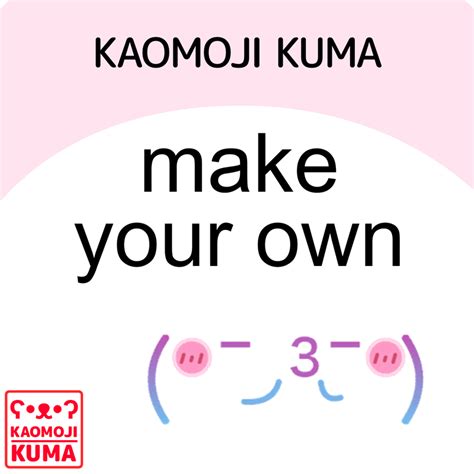
Kaomoji Font Illustrator: Create Your Own Emoticons
Hey guys! Ever scrolled through your phone or online chats and seen those super expressive little faces made from text characters? Yeah, those are kaomoji , and they’re seriously awesome for adding personality to your digital conversations. But what if you want to go beyond the standard kaomoji and create your own unique designs? That’s where a kaomoji font illustrator comes in handy. In this article, we’re going to dive deep into what kaomoji are, why you might want to illustrate your own, and how you can get started with the right tools. We’ll cover everything from the basics of kaomoji construction to more advanced techniques, ensuring you’ll be whipping up your own signature emoticons in no time. Get ready to level up your emoji game, folks!
Understanding Kaomoji: More Than Just Faces
So, what exactly are kaomoji ? The word itself comes from Japanese, with “kao” meaning “face” and “moji” meaning “character.” So, literally, they’re “face characters.” But they’re way more than just simple smiley faces. Think of them as text-based emoticons that you create using a combination of Japanese punctuation, letters, and symbols. Unlike Western emoticons that are typically read sideways (like :)), kaomoji are designed to be read upright, incorporating a wider range of expressions and emotions. They can be incredibly detailed, featuring arms, hair, hats, and even full-body characters. For instance, the classic happy face in kaomoji might look something like (^^) , but you can also find incredibly complex ones like the waving character ヾ(^_^)ノ or a crying character (T_T) . The beauty of kaomoji lies in their flexibility and the sheer expressiveness they allow. You can convey nuances of emotion that a simple :) just can’t capture. They’re a fundamental part of Japanese internet culture, used extensively in forums, social media, and messaging apps to add flavor and context to text. It’s like having a whole orchestra of emotions at your fingertips, played out with just a few keystrokes. The creativity involved is astounding; people have developed entire libraries of kaomoji for every conceivable situation and feeling. Whether you’re expressing joy (*´▽ *) , sadness (´・ ・ ) , anger (> <) , or even surprise (O_O)`, there’s a kaomoji for it. And the best part? You don’t need any special software to type them out – just your keyboard! However, while typing existing kaomoji is easy, creating new ones requires a bit more thought and perhaps some visual aids, which brings us to the idea of a kaomoji font illustrator.
Why Illustrate Your Own Kaomoji?
Now, you might be thinking, “Why would I need to illustrate my own kaomoji?” That’s a fair question, guys! The internet is already brimming with awesome kaomoji. But here’s the thing: personalization is key in the digital age. Creating your own kaomoji allows you to express yourself in a way that’s truly unique. Imagine having a signature kaomoji that perfectly captures your quirky sense of humor or your go-to reaction for a hilarious meme. It adds a personal touch that standard emoticons just can’t match. Furthermore, a kaomoji font illustrator can help you move beyond just typing characters. It can empower you to design visually appealing kaomoji that stand out. You might want to create kaomoji with specific themes – perhaps for a gaming group, a book club, or even your own personal brand. Think about creating kaomoji for your favorite anime characters, your pets, or inside jokes shared with your friends. The possibilities are truly endless! Instead of settling for the generic, you can craft something that resonates deeply with you and your audience. This is especially useful if you’re a content creator, a streamer, or someone who wants to build a distinct online persona. A custom kaomoji can become your digital mascot, instantly recognizable and representative of your style. It’s about ownership and creativity. You’re not just a consumer of kaomoji; you become a creator, adding your own artistic flair to this fun form of communication. So, the ‘why’ boils down to uniqueness, personalization, creative expression, and building a distinct online identity. It’s about making your mark on the digital world, one text character at a time.
Tools for Illustrating Kaomoji
Alright, let’s talk tools! When you think about illustrating kaomoji, your mind might immediately jump to complex graphic design software. But honestly, you can start with much simpler tools, and some are even specifically designed for creating text-based art like kaomoji. The first and most fundamental tool is your keyboard . Yes, seriously! By understanding the different characters available – symbols, punctuation, letters, and even special Unicode characters – you can start piecing together your own designs. Think of it like building with LEGOs, but with letters and symbols. Experimenting with different combinations is the first step. Then, you’ll want to explore online kaomoji generators or editors . These are fantastic resources that often provide a visual interface where you can drag and drop characters, adjust spacing, and preview your creations in real-time. Some popular examples include sites that offer character palettes sorted by category (like eyes, mouths, arms, etc.), making it super easy to find the building blocks you need. These editors often allow you to save your creations or even export them as text strings that you can copy and paste. For a more advanced approach, especially if you want to create truly custom visuals that look like kaomoji but are more like actual images, you might consider graphic design software . Programs like Adobe Illustrator, Procreate, or even free alternatives like GIMP or Krita can be used to draw kaomoji-style characters. In this scenario, you’re not just combining existing characters; you’re drawing them from scratch, giving you ultimate control over style, line weight, and shading. You can then save these as images to use in place of text kaomoji or even design a custom font file if you’re feeling ambitious. The key is to start with what’s accessible. Begin by playing with your keyboard, then explore online tools, and only if you need more control or a distinct visual style, move on to professional graphic design software. Remember, the goal is to make the process fun and accessible, so choose the tools that best fit your skill level and creative vision!
Using Your Keyboard: The Original Kaomoji Font Illustrator
Before we jump into fancy software, let’s give a shout-out to the OG – your keyboard . Seriously, guys, your keyboard is your first and most powerful kaomoji font illustrator . It’s the original text-based art tool! Kaomoji are built from characters you already have access to. Think about it: you’ve got your basic letters (A-Z, a-z), numbers (0-9), and a treasure trove of punctuation and symbols like periods ( . ), commas ( , ), hyphens ( - ), underscores ( _ ), parentheses ( () , [] , {} ), slashes ( / , ), asterisks ( * ), ampersands ( & ), at symbols ( @ ), and so on. But the real magic happens when you explore less commonly used symbols or special characters. Many keyboards, especially on smartphones, have easy access to a wide array of symbols. On a computer, you might need to use Alt codes or Character Map utilities (on Windows) or the Character Viewer (on macOS) to access a broader range of symbols, including those from different scripts or specialized icon sets. For instance, the ¯\_(ツ)_/¯ kaomoji uses a backslash , an underscore _ , a parenthesis () , and the Japanese character katakana ‘tsu’ (ツ). Finding that ‘tsu’ character is the trick! It’s all about experimenting. Start with a basic structure like ( ... ) or [ ... ] . Then, focus on the eyes. You can use periods . , carets ^ , equals signs = , asterisks * , or even letters like ‘o’ or ‘x’. For mouths, try underscores _ , hyphens - , tildes ~ , or the letter ‘w’. And don’t forget arms and accessories! Slashes / and can be arms, while symbols like * or ~ can add flair. The key here is trial and error . Type out a few characters, see how they look, delete, adjust, and repeat. Search online for lists of common kaomoji characters and symbols used in different categories (eyes, mouths, hands, etc.). You’ll be amazed at how many expressive combinations you can come up with using just the standard keys and a bit of imagination. Your keyboard isn’t just for typing words; it’s a canvas for creative, text-based art. So, don’t underestimate its power as your initial kaomoji font illustrator ! Start playing around, and you’ll find yourself creating unique kaomoji in no time. It’s the most accessible and fundamental way to begin your kaomoji illustration journey.
Online Kaomoji Generators and Editors
Once you’ve mastered the basics with your keyboard, or if you just want a more guided experience, online kaomoji generators and editors are your next best friends, guys! These tools are specifically designed to make the process of creating and customizing kaomoji super straightforward and fun. They often act as a visual playground where you don’t have to memorize every single symbol or worry about keyboard shortcuts. The beauty of these platforms is their user-friendly interface. Typically, you’ll find a canvas or a text box where you can start building your kaomoji. What makes them particularly useful is the inclusion of character palettes. These palettes are usually organized into categories like eyes, mouths, eyebrows, arms, accessories, and even full body parts. You can simply click on a character you like – say, a pair of happy eyes (^^) – and it gets inserted into your kaomoji. Then, you can add a mouth, maybe a simple underscore _ , and some arms like /( )\ . Many generators allow you to see your kaomoji come to life in real-time as you add or change components. This instant feedback is invaluable for fine-tuning your creation. Some advanced editors even let you adjust the spacing between characters, change the size, or swap out entire sections with a single click. Popular online kaomoji tools often have a vast library of pre-made kaomoji that you can use as inspiration, modify, or simply copy and paste if you find one you love. They also usually provide a way to save your custom creations or generate a text string that you can easily copy to your clipboard and use in chats, social media posts, or anywhere else you want to express yourself. If you’re looking to create kaomoji that are a bit more unique than the standard fare but don’t want to dive into complex graphic design software, these online generators are the perfect sweet spot. They offer a balance of ease of use and creative control, making them an excellent choice for anyone wanting to create their own expressive text art. They essentially provide a visual framework for your keyboard-based creativity, turning the abstract process of symbol combination into a tangible and enjoyable design experience. It’s like having a digital toolkit specifically for kaomoji artistry!
Graphic Design Software for Advanced Kaomoji Art
Now, if you’re someone who loves to get really hands-on with design, or if you envision your kaomoji not just as text characters but as actual graphics , then diving into graphic design software is the way to go, folks! This is where you elevate your kaomoji creation from a keyboard-based art form to a full-blown visual design project. Programs like Adobe Illustrator (a professional vector graphics editor), Procreate (a popular iPad drawing app), or even free and open-source alternatives such as GIMP (for raster graphics) and Krita (excellent for digital painting and drawing) open up a world of possibilities. With these tools, you’re not limited to existing keyboard characters. You can draw anything you can imagine. Want a kaomoji with detailed, anime-style eyes? You can draw them. Need a kaomoji with a unique hat or a specific accessory? You can create it from scratch. The power here lies in pixel-level or vector-level control . You can define the exact shape, color, shading, and texture of every element. This allows for a level of detail and stylistic consistency that’s impossible with just keyboard characters. For instance, you could design a series of kaomoji characters with a consistent art style, perfect for branding or a specific project. You can create kaomoji that are perfectly suited for different resolutions or applications – maybe a simple, bold one for chat messages, and a more detailed one for a website banner. The process typically involves using drawing tools (like brushes, pencils, pen tools) to sketch out your kaomoji elements – eyes, mouths, hands, bodies, accessories. You can then assemble these elements, perhaps using layers in your software, to form the complete character. Some designers even go a step further and create a custom font file . This is the most advanced level, where you design each character, then use font creation software (like FontForge, Glyphs, or even some features within Adobe Illustrator) to bundle them into a functional font that you can install and use like any other font on your computer. This means your custom kaomoji can be typed directly from your keyboard, appearing as designed, wherever you use that font. While this requires a steeper learning curve, the result is ultimate customization and integration. So, if you’re aiming for professional-quality, highly stylized, or consistently branded kaomoji, graphic design software is your ultimate kaomoji font illustrator . It offers unparalleled creative freedom and the ability to bring your most imaginative kaomoji visions to life.
Designing Your First Kaomoji
Ready to create your very own kaomoji, guys? It’s time to put what we’ve learned into practice! Don’t worry about making a masterpiece on your first try; the goal here is to experiment and have fun. Let’s break down the process into simple steps. First, decide on the emotion or expression. What do you want your kaomoji to convey? Is it happiness, sadness, excitement, confusion, or maybe a specific action like waving or shrugging? Having a clear idea will guide your character choices. For example, if you want a happy kaomoji, you’ll likely look for upward-curving mouths and bright, open eyes. If it’s confusion, maybe squinting eyes and a tilted head. Second, think about the basic structure. Most kaomoji start with a framing element, usually parentheses () or brackets [] . This gives your kaomoji a contained shape. You can also use slashes / and for a more open feel. Third, choose the eyes. The eyes are often considered the most important part for conveying emotion. Do you want simple dots . , playful carets ^ , wide-open ‘o’s, or maybe crossed eyes X for confusion? Experiment with different pairs. Fourth, add the mouth. The mouth is crucial for defining the specific nuance of the emotion. An underscore _ can be neutral or slightly sad, a hyphen - or tilde ~ can suggest a smile or a sly grin, while a wide ‘o’ or a ‘3’ can indicate surprise or a scream. Fifth, consider arms and accessories. This is where you add personality and action. Slashes / and are classic for arms. You can use asterisks * or exclamation points ! for flair, or perhaps symbols like ~ or o to indicate blush or sweat. For a shrugging kaomoji, you might use ¯\_(ツ)_/¯ , where the ¯\ and _/¯ represent the shrugged arms and shoulders. Sixth, refine and iterate. Look at your creation. Does it capture the emotion you intended? Is the spacing right? You might need to adjust the characters, try different symbols, or tweak the arrangement. Don’t be afraid to delete and start over or modify existing parts. Online generators can be super helpful here, allowing you to swap elements easily. Remember, practice makes perfect. The more you play around with different characters and combinations, the better you’ll become at visualizing and constructing expressive kaomoji. So grab your virtual pen, or just your keyboard, and start designing! Your unique kaomoji journey begins now.
Best Practices for Kaomoji Creation
Alright, so you’ve dipped your toes into the world of kaomoji illustration, and you’re ready to make some seriously cool text art! But before you go wild, let’s talk about some best practices for kaomoji creation to make sure your creations are not just unique but also effective and well-received. First off, clarity is key . While intricate kaomoji can be impressive, remember that their primary purpose is communication. Ensure the emotion or action you’re trying to convey is easily recognizable. If your kaomoji is too complex or uses obscure symbols, people might not understand it, defeating the purpose. Stick to commonly understood characters where possible, or at least ensure the overall shape and expression are intuitive. Second, consider context . A kaomoji that’s perfect for a casual chat with friends might not be appropriate for a professional email or a formal online forum. Always think about where you’ll be using your kaomoji and tailor its complexity and tone accordingly. A simple (^_^) is generally safe, while something highly stylized might require more thought. Third, test your kaomoji across different devices and platforms . This is super important, guys! Different operating systems, browsers, and messaging apps render characters slightly differently. What looks perfect on your computer might appear jumbled or distorted on someone else’s phone. Copy and paste your kaomoji into various environments to ensure it holds up. Some complex kaomoji might break if the font doesn’t support all the characters used. Fourth, maintain consistency if creating a set . If you’re designing a series of kaomoji for a specific purpose (like for your Twitch channel or a personal blog), try to maintain a consistent style, color palette (if using graphics), and level of detail. This creates a cohesive and professional look. Fifth, get feedback . Share your creations with friends or online communities and ask for their thoughts. They might spot issues you missed or suggest improvements. Constructive criticism is invaluable for growth. Sixth, understand character encoding . Kaomoji often rely on Unicode characters. While most modern platforms handle this well, be aware that older systems or specific configurations might have trouble displaying certain characters correctly. Stick to widely supported Unicode blocks if you want maximum compatibility. Finally, keep it fun! The whole point of kaomoji is to add personality and enjoyment to communication. Don’t get so bogged down in the technicalities that you lose the creative spark. Experiment, play, and let your personality shine through your text-based creations. By following these best practices, your kaomoji will not only look great but also serve their purpose effectively, making your digital interactions more expressive and engaging for everyone involved. Happy kaomoji illustrating!
The Future of Kaomoji and Text-Based Art
As we wrap things up, let’s take a moment to ponder the future of kaomoji and text-based art . In a world increasingly dominated by rich media, emojis, GIFs, and videos, you might wonder if simple text characters still have a place. I’d argue, absolutely yes ! The evolution of kaomoji is far from over. We’re seeing a constant stream of innovation, driven by the same creative impulse that birthed them. One major trend is the integration of kaomoji into more sophisticated digital platforms. Think beyond simple chat windows; imagine kaomoji being used as interactive elements in games, as customizable avatars in virtual worlds, or even as dynamic characters in digital storytelling. The line between text art and graphic design continues to blur. With advances in AI and machine learning, we might even see tools that can automatically generate complex kaomoji based on textual descriptions or user input, acting as even more intuitive kaomoji font illustrators . Furthermore, the appreciation for retro and minimalist aesthetics is growing. In an era of visual overload, the charm of creating expressions from basic symbols offers a unique, low-bandwidth, and deeply personal way to communicate. It’s a form of art that’s accessible to anyone with a keyboard, fostering a sense of community among creators and users. We might also see a resurgence in unique character sets and fonts designed specifically for text-based art, making it easier than ever to create visually stunning and unique kaomoji. Imagine dedicated kaomoji fonts that offer a wide range of expressive characters and pre-designed elements. The fundamental appeal of kaomoji lies in its accessibility, creativity, and expressiveness . These are qualities that don’t fade with technological advancement. As long as people want to add personality and nuance to their digital conversations, kaomoji and similar forms of text-based art will continue to thrive, adapt, and evolve. They represent a timeless form of human expression, proving that sometimes, the simplest tools can yield the most profound results. So, keep creating, keep sharing, and embrace the enduring charm of text-based art – the future looks expressive!